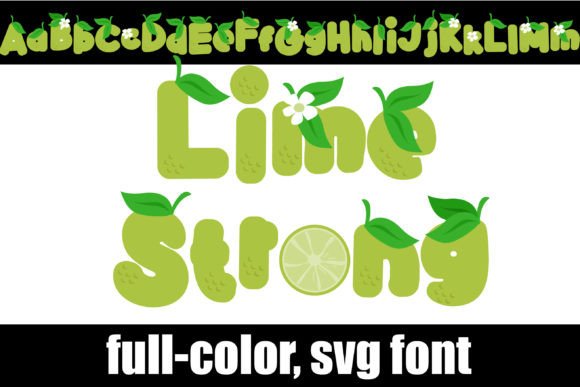
Lime Strong Font: Embark on a Vibrant Visual Symphony
Immerse yourself in the world of Lime Strong Font, the ultimate font for injecting unparalleled vibrancy and zest into your creative designs. Say goodbye to dull, lifeless fonts and embrace the joyous energy of this citrus-inspired masterpiece.
Picture this: a burst of zesty lime green letters dancing across your screen, each character exuding a playful, energetic charm. Lime Strong Font adds a dash of summery freshness to your projects, transforming them into visually captivating works of art.
But it's not just about aesthetics. This full-color SVG font is a testament to versatility and functionality. With its extensive palette of colors and styles, Lime Strong Font effortlessly adapts to your creative vision, whether you're designing logos, illustrations, posters, or any other digital masterpiece. The possibilities are boundless!
Unleash your imagination and let the Lime Strong Font paint a symphony of colors. Dive into the sea of creative freedom and create designs that leave an indelible mark on your audience's minds.
So why settle for ordinary fonts when you can bask in the glory of Lime Strong Font? Experience the transformative power of color and embrace a new era of visual storytelling.